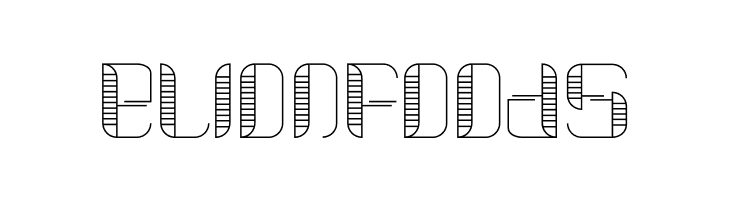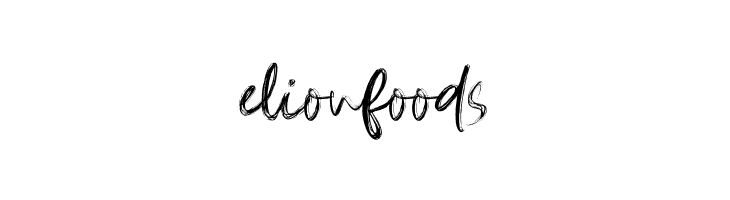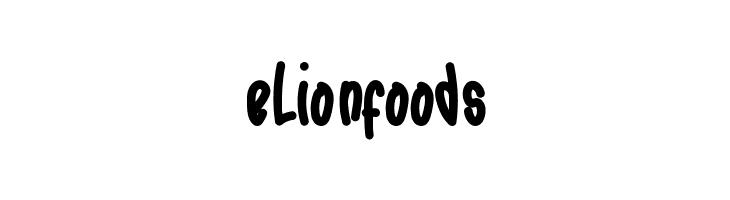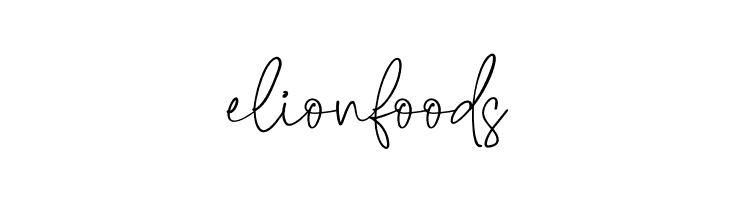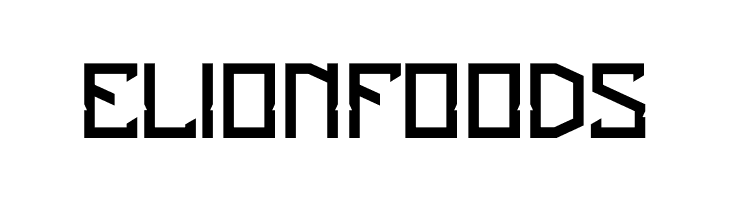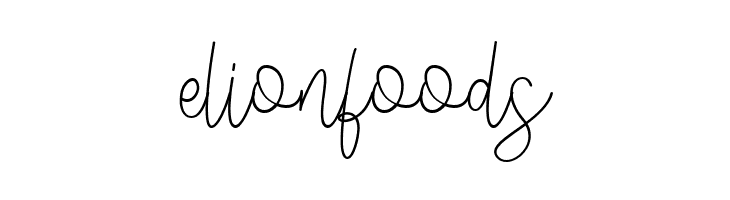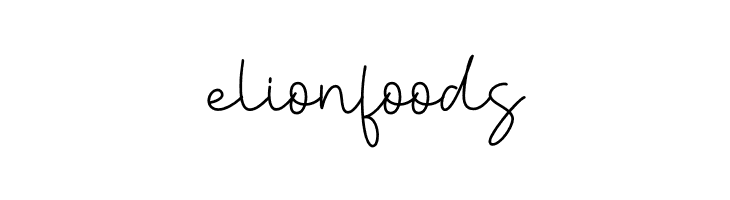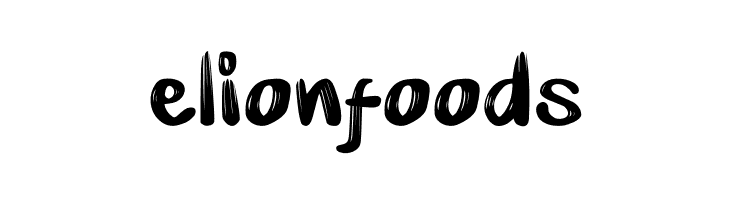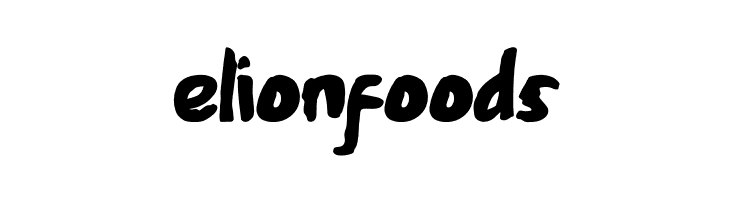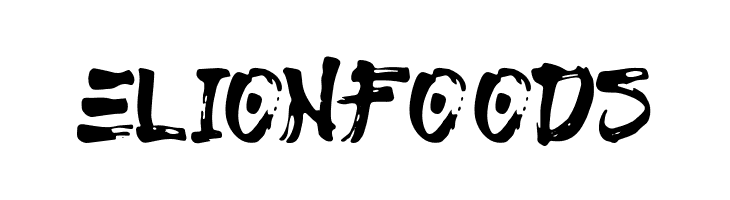
A modern, geometric font with a striped, linear design.
A dynamic, brush-style handwritten font with expressive strokes.
A playful, bold handwritten font with a whimsical touch.
A fluid, handwritten script font with a sophisticated, signature-like style.
A bold, angular font with geometric and sharp-edged letterforms.
A playful, whimsical handwritten font with flowing, interconnected letters.
A playful, handwritten cursive font with smooth, flowing lines.
A bold, brush-style font with dynamic, hand-drawn strokes.
A bold, hand-drawn font with playful, uneven strokes and a dynamic appearance.
A bold, brushstroke-style font with dynamic and artistic flair.